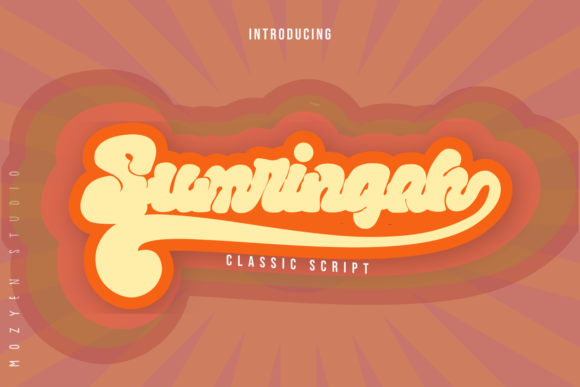
Sumringah: A Vintage Bold Script Font for Creative Branding
I was working on a brand identity project for a small artisanal bakery when I first opened the font folder and saw Sumringah. As a script handwritten typeface, it immediately caught my eye with its vintage flair and confident strokes. I had to test it out—after all, as a brand designer, the right font can make or break a concept. What followed was an hour of experimenting with logo drafts, brand boards, and packaging mockups, and I quickly realized that Sumringah is more than just another pretty script—it’s a powerful design tool with a unique personality.
Sumringah in Logo Design for Handmade Brands
In logo work, especially for niche businesses like handmade shops or boutique cafés, finding the right script handwritten font can be tricky. You want something expressive but not too fussy. That’s where Sumringah shines. Its bold, flowing letterforms carry a sense of warmth and authenticity. When I placed it on a coffee shop logo, the name felt handcrafted yet strong enough to stand out in a sea of minimalist designs.
The vintage vibe adds a timeless quality that works well with brands aiming for a nostalgic or artisan feel. However, because it’s a script font, I found it best suited for short phrases rather than full sentences. It’s also important to ensure the spacing and kerning are adjusted carefully, as scripts can sometimes feel cluttered if not handled properly.
Using Sumringah for Packaging and Product Labels
One of the standout moments came when I applied Sumringah to a product label for a line of organic skincare items. The bold script added an air of elegance and charm, making the packaging feel both premium and personal. Unlike many other handwritten fonts that can become hard to read at smaller sizes, Sumringah held up surprisingly well on labels—even when printed on compact jars and tins.
Its versatility doesn’t stop there. For a local craft beer label, the font brought character without being over the top. And when used alongside a clean sans serif body font, it helped establish a clear visual hierarchy between the headline and supporting details. Just keep in mind that for longer text elements on labels, you’ll need to pair it with a more legible secondary font.
Sumringah for Social Media and Editorial Layouts
Social media branding is one of those areas where a little goes a long way, and Sumringah delivered exactly that. On Instagram posts promoting a new product launch, the script handwritten style gave the captions a warm, personal touch. It wasn’t too casual for a lifestyle brand, nor too ornate for quick scanning. The key was using it sparingly—just for headlines and taglines.
For editorial layouts like newsletters or blog headers, I tested it against other Fonts in the same category. While it’s definitely not ideal for body copy, it worked beautifully for pull quotes and section headings. The vintage aesthetic paired nicely with muted tones and natural textures, reinforcing a cozy, retro-inspired mood.
Font Pairing Suggestions with Sumringah
When it comes to pairing, Sumringah plays well with several types of Fonts. My favorite combinations were:
- A modern sans serif for contrast and clarity—great for websites and digital content.
- A soft serif font for a balanced, elegant look—ideal for print materials and luxury branding.
- Another script font (more delicate) for layered typography—used in badges or certificates.
What I didn’t find effective was pairing it with another heavy-handed display font. Sumringah has enough presence on its own, so trying to mix it with similar styles often muddled the message. Stick to one main script handwritten font per project unless you’re going for a very specific layered effect.
Sumringah for Business Cards and Stationery
Business cards are where first impressions count. I used Sumringah for a greeting card company’s stationery set and was impressed by how it elevated the design from simple to memorable. The bold script made the contact info pop while still maintaining a professional edge. But here’s a tip: always test your chosen font in print before finalizing the layout. Digital previews can be misleading—especially for handwritten styles.
Sumringah on Web Headers and Digital Branding
Web design is another area where Sumringah can thrive—if used correctly. I tried it on a homepage hero section for a creative studio website and found that it performed well as a heading font. Its weight and structure made it readable even on mobile screens, which is rare for some handwritten Fonts. Just be sure to optimize it for web use, and consider using a lighter version if available for subheadings or accents.
One thing to note: avoid using Sumringah for large blocks of text online. While it looks stunning for titles and call-to-action buttons, it can strain readability in long paragraphs. Always reserve it for display purposes only.
Where Sumringah Might Not Be the Best Fit
Even though Sumringah is incredibly versatile, it does have its limits. I wouldn’t recommend it for formal corporate branding or legal documents due to its informal, cursive nature. Similarly, if your project requires high readability in small sizes—like infographics or data-heavy reports—stick to a more structured font.
If you're looking for a font that brings warmth, character, and a touch of nostalgia to your designs, give Sumringah a try. It’s not just another font—it’s a statement.